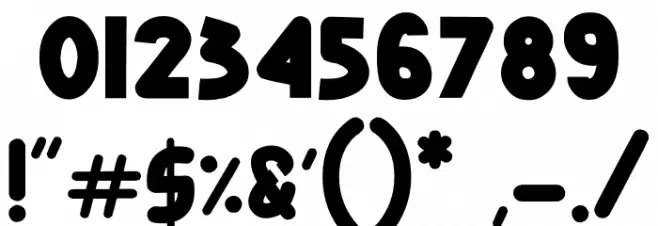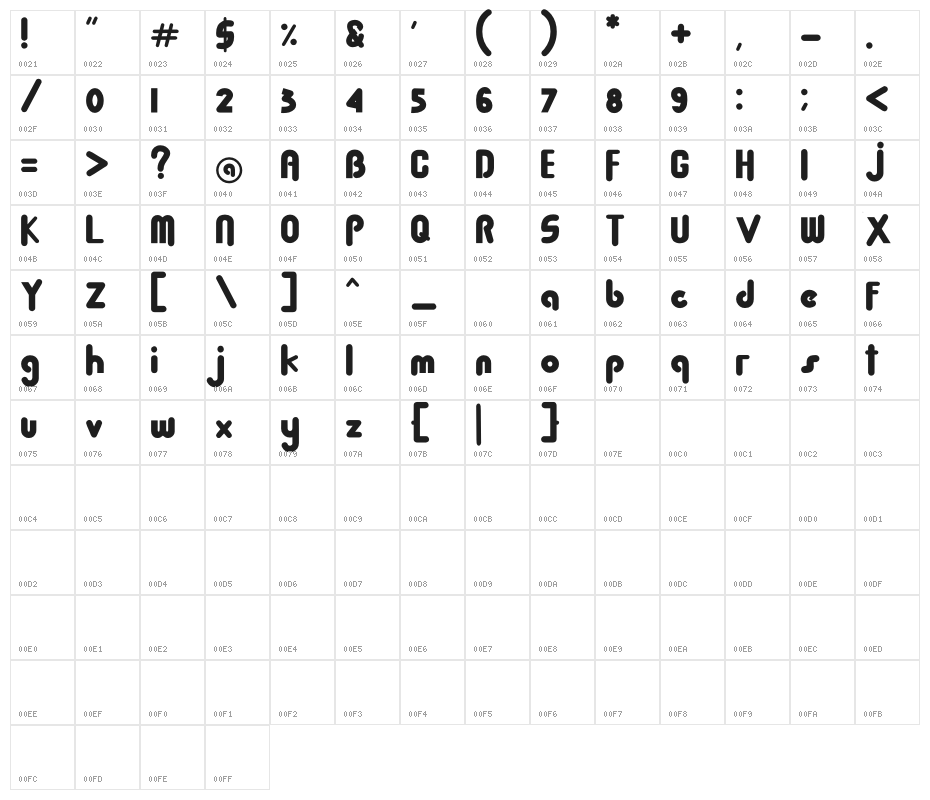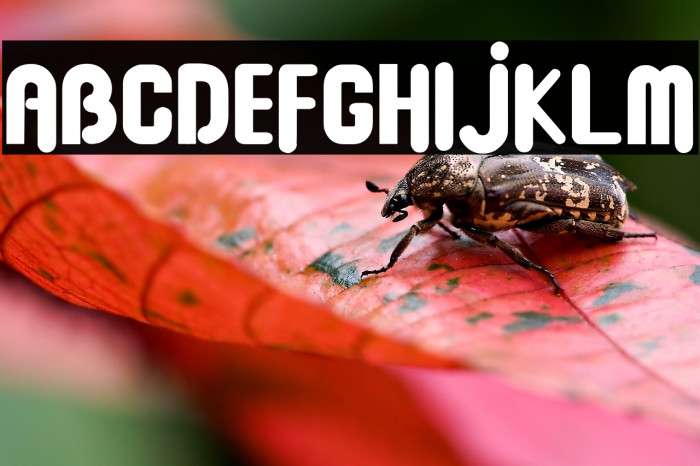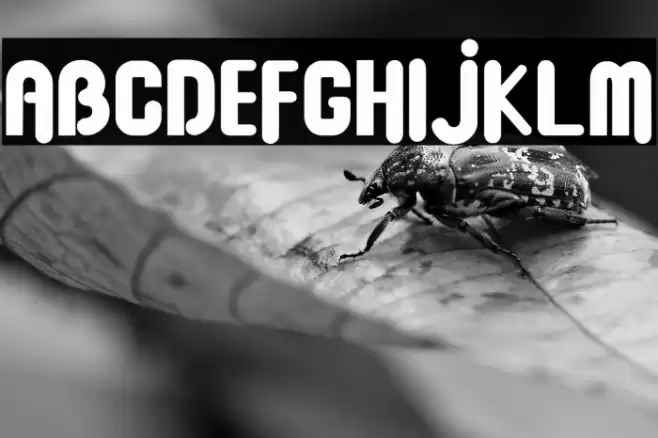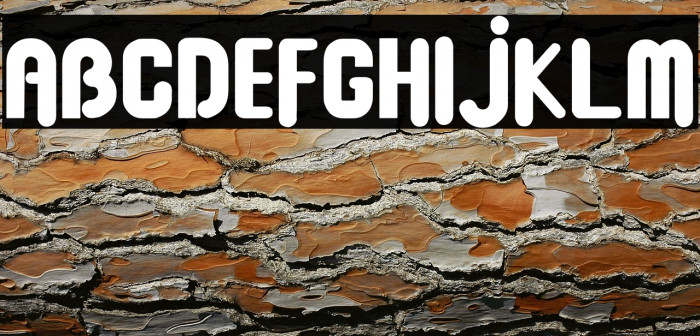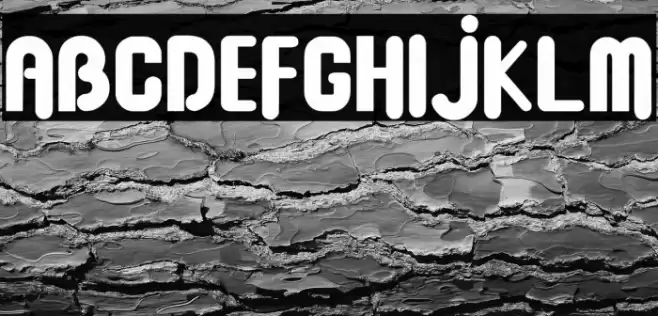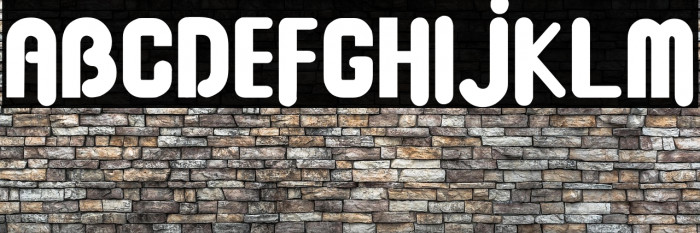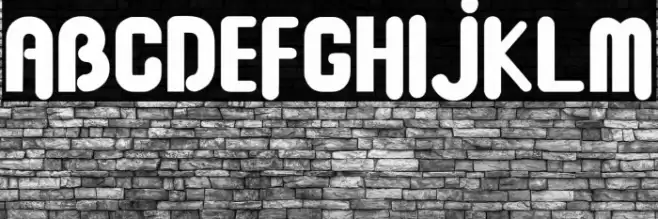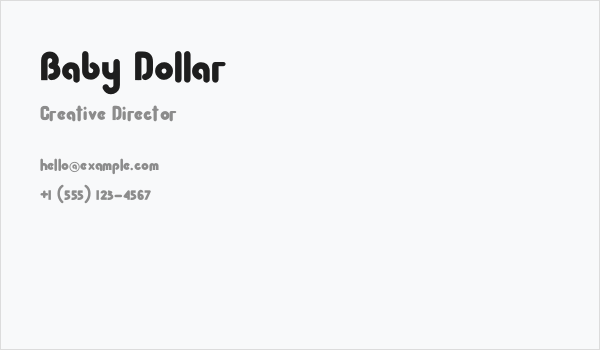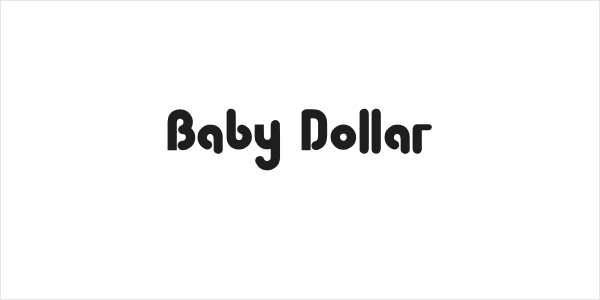
Baby Dollar Font
Baby Dollar Description
This playful and bold font features rounded edges and a thick, uniform stroke that gives it a friendly and approachable appearance. The characters are well-balanced with a consistent weight, making them easy to read while maintaining a unique style. The uppercase and lowercase letters are distinct yet harmonious, with a slight whimsical touch that adds character. The numerals and special characters are designed to match the overall aesthetic, ensuring a cohesive look across all text elements. This font's design is ideal for projects that require a fun and engaging visual impact.